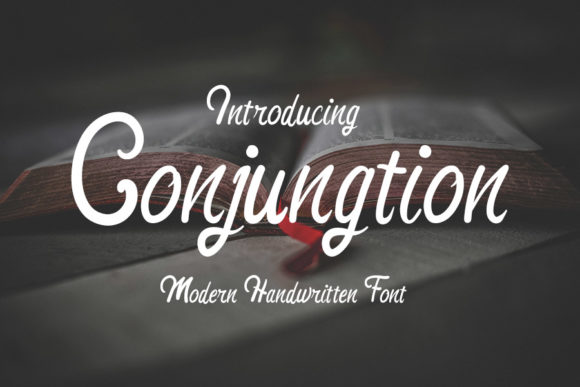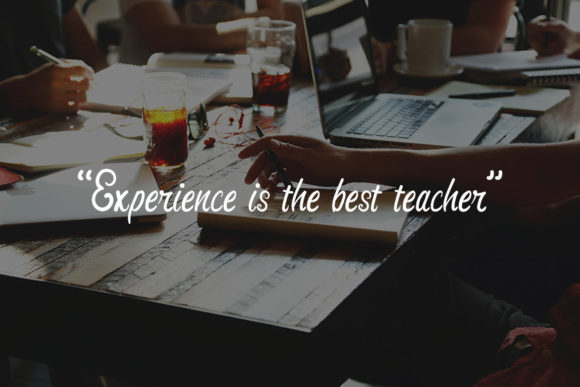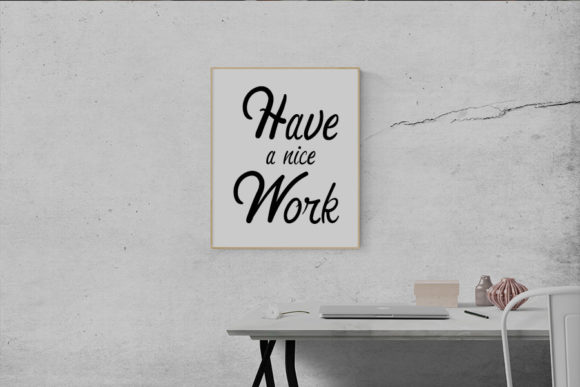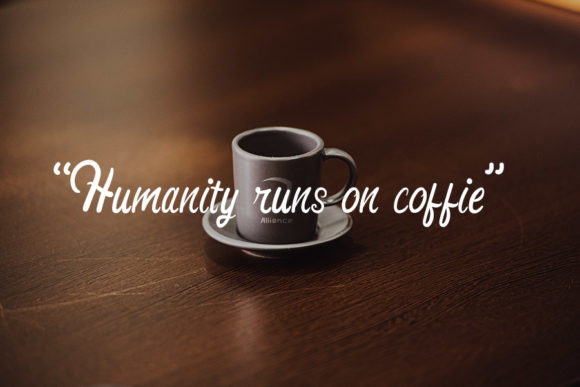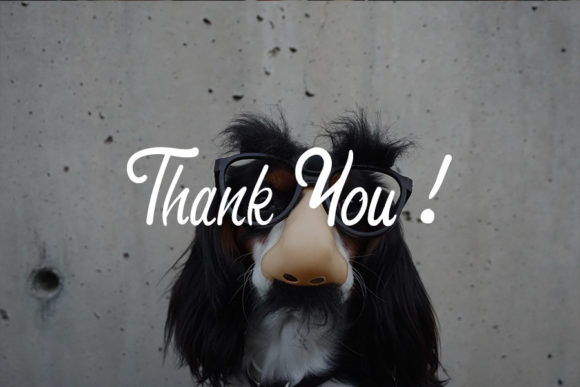
Conjungtion Font
About Conjungtion Font
Conjungtion is a thin and stylish handwritten font. It is defined by smooth curves and is perfect for fashion branding or editorial designs. Add it confidently to your projects, and you will love the results.